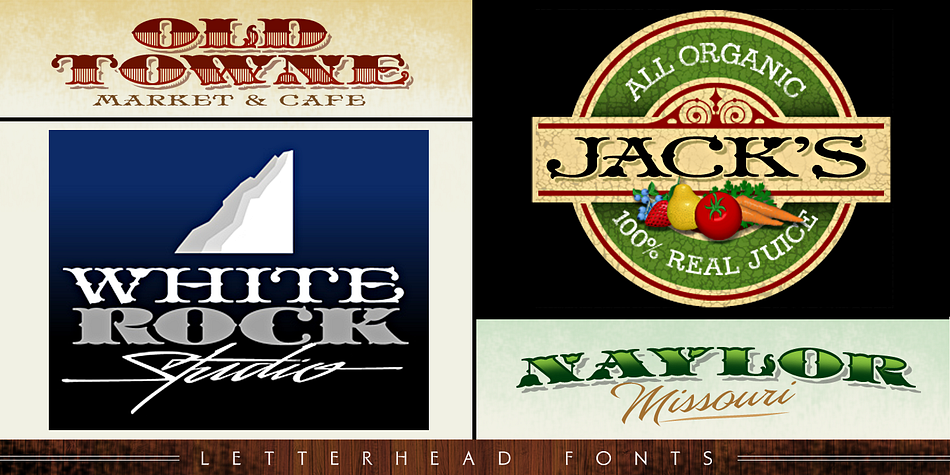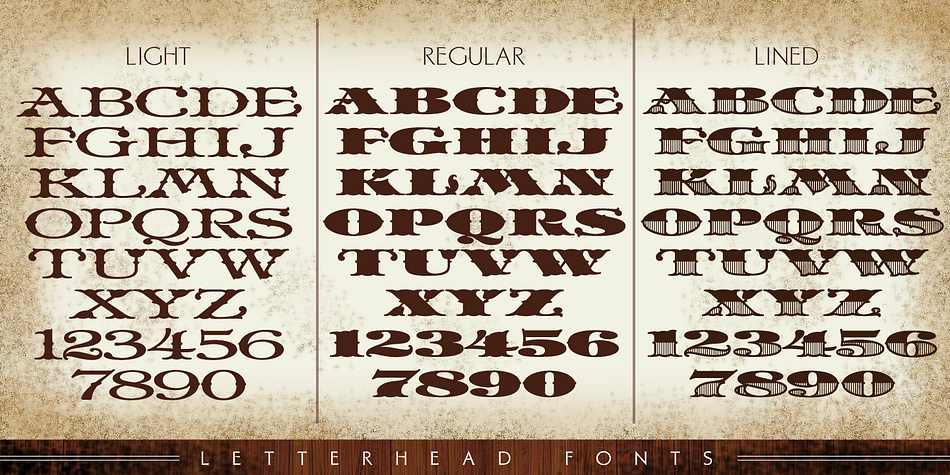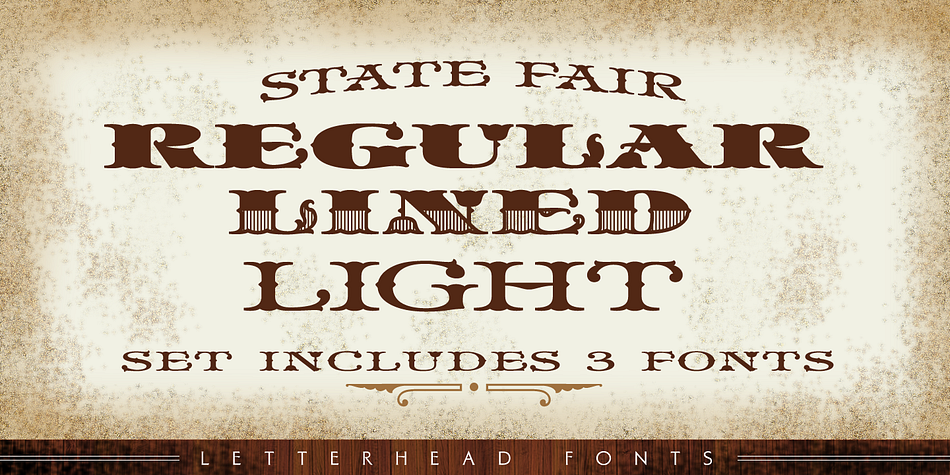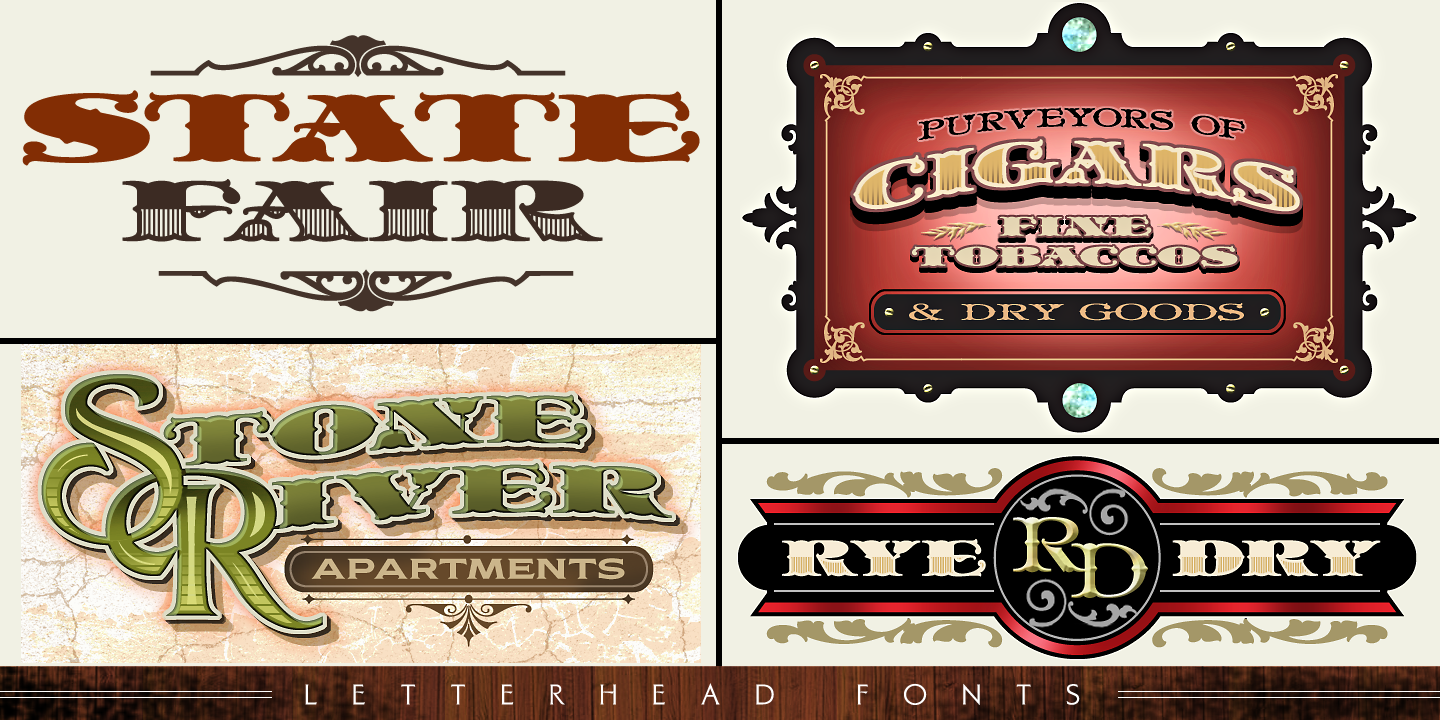
Designed by Mike Jackson, LHF State Fair is a display, serif and western font family. This typeface has three styles and was published by Letterhead Fonts.
Reminiscent of lettering used on old stock certificates from the late 1800ís. With its extra wide letters and ornate features, LHF State Fair commands attention. Get over 60 bonus panels and ornaments when you purchase the set (Regular, Lined & Light).